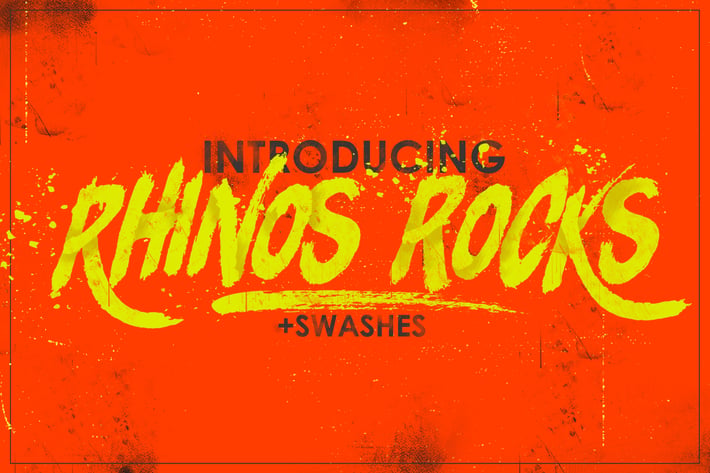
Rhinos Rocks Brush Font
RHINOS ROCKS is brush font including all US glyphs and it comes in regular and slant version. Ideal for loud messages. Made with round marker adding realistic moves in it. Very interesting to use for logos, name tags, handwritten quotes, product packaging, merchandise, social media & greeting cards .Also, ideal to make t-shirts design and other clothing products.
RHINOS ROCKS Left - Hand brushed font including all uppercase letters which has a complete set of A-Z, and support for US glyphs letters. Combinate uppercase and lowercase letters to get interesting text styles.
RHINOS ROCKS All Caps - Hand brushed font including All Caps letters which has a complete set of A-Z, and support for US glyphs letters.
RHINOS ROCKS - 17° slant hand brushed font including all uppercase letters which has a complete set of A-Z.
RHINOS ROCKS SWASHES Swashes - EXTRA 14 Underline swashes and paint splatters. Use them by typing any letter from A to Z and combinating them with regular letters.